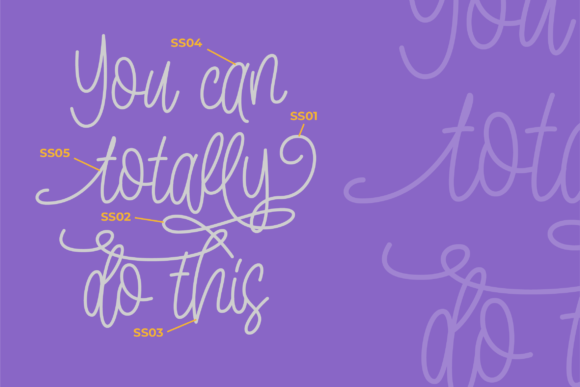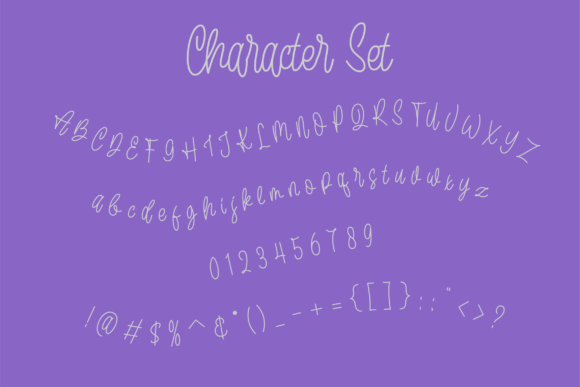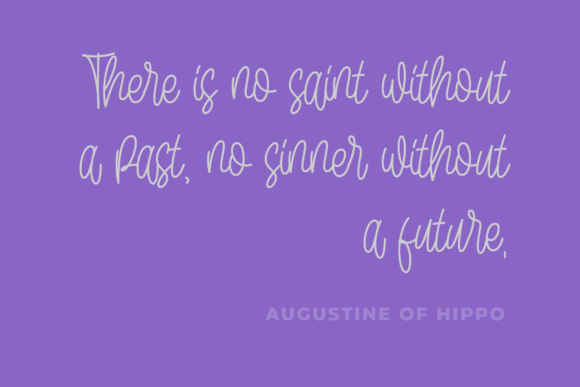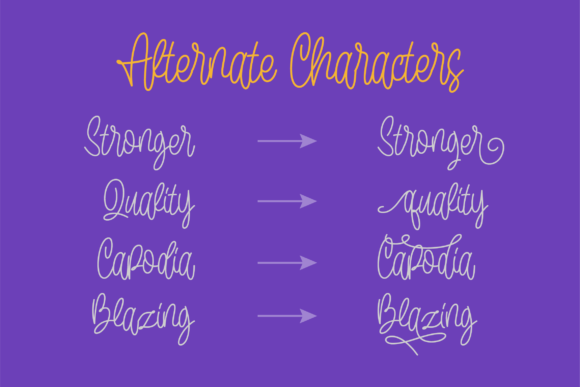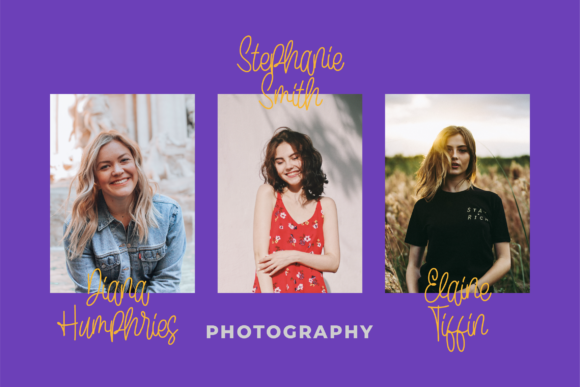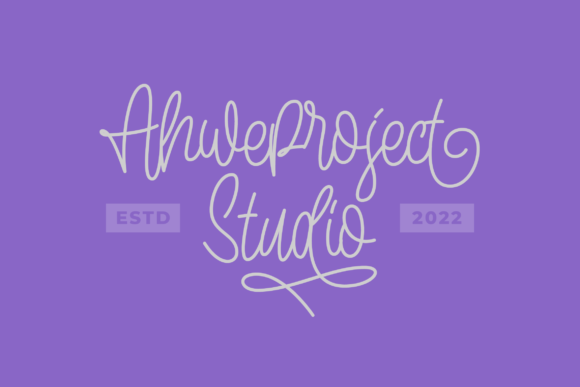
Badelion Font: Elevate Your Designs with Elegance and Sophistication
In the world of typography, fonts play a crucial role in conveying the tone and aesthetic of a design. For designers and crafters seeking to add a touch of elegance and romance to their projects, the Badelion font is an excellent choice. This thin lettered, stylish, and delicate script font is designed to bring a joyful and romantic feel to a variety of design ideas.
What is Badelion Font?
Badelion is a beautiful, hand-crafted script font that features thin, delicate letters with a stylish and elegant appearance. Its gentle curves and refined lines make it perfect for designs that require a touch of sophistication and romance. Whether you’re working on a wedding invitation, a branding project, or a digital design, Badelion font is sure to impress.
Key Features of Badelion Font
- Thin Lettered: Badelion font features thin letters that are perfect for creating elegant and refined designs.
- Stylish and Delicate: The font’s delicate curves and lines give it a stylish and sophisticated appearance.
- Script Font: Badelion is a script font that adds a touch of romance and elegance to any design.
- Versatile: This font can be used on a variety of design ideas, from wedding invitations to branding projects and digital designs.
How to Use Badelion Font in Your Designs
Badelion font can be used in a variety of design projects, including:
- Wedding Invitations: Add a touch of elegance and romance to your wedding invitations with Badelion font.
- Branding Projects: Use Badelion font to create a sophisticated and refined brand identity.
- Digital Designs: Badelion font is perfect for digital designs, such as social media graphics, blog headers, and more.
- Stationery: Use Badelion font to create beautiful and elegant stationery, such as letterheads and business cards.
Tips for Using Badelion Font Effectively
To get the most out of Badelion font, here are some tips to keep in mind:
- Pair with Bold Fonts: Pair Badelion font with bold fonts to create a striking contrast and add visual interest to your design.
- Use on Light Backgrounds: Badelion font looks best on light backgrounds, which help to showcase its delicate and elegant features.
- Experiment with Colors: Try experimenting with different colors to find the perfect match for your design.
Badelion font is a beautiful and elegant script font that is perfect for designers and crafters seeking to add a touch of sophistication and romance to their projects. With its thin lettered, stylish, and delicate design, Badelion font is sure to elevate your designs and make them stand out. Whether you’re working on a wedding invitation, a branding project, or a digital design, Badelion font is an excellent choice.